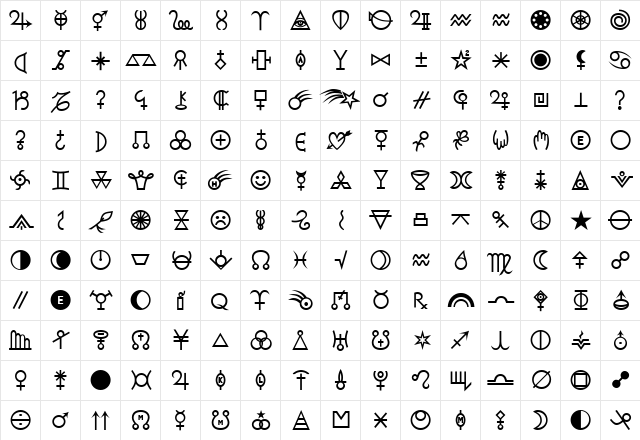
StarGemsDemi Medium
Design Context for StarGemsDemi Typeface
StarGemsDemi is a composed and adaptable typeface that performs quietly and consistently across a wide range of design contexts.